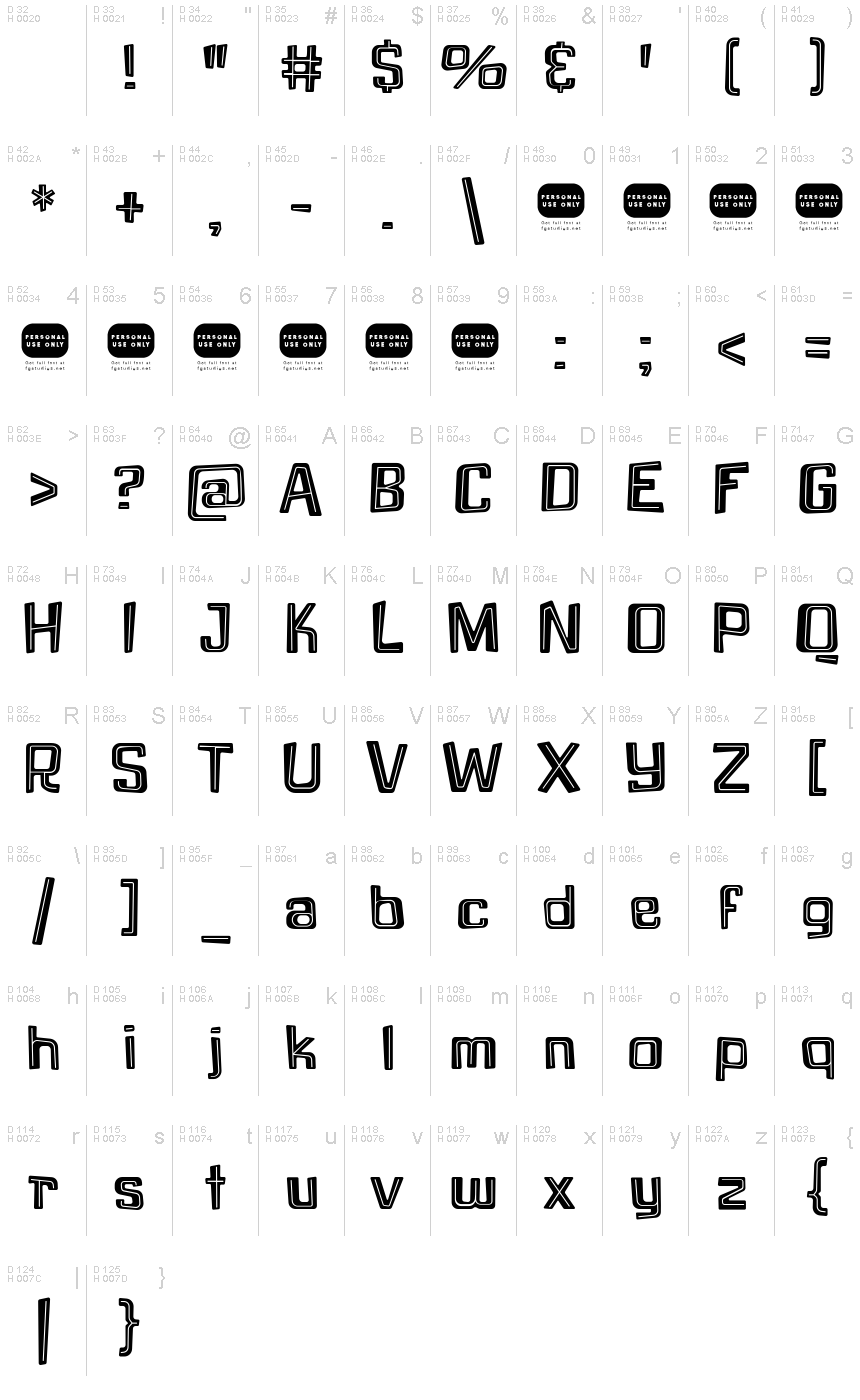
Zolla Outlined
Zolla Outlined, designed by FG Studios, is a striking display font characterized by a playful cartoon style. Its bold, outlined letters exude a sense of fun and creativity, making it perfect for eye-catching headlines and attention-grabbing titles. The distinctiveness of Zolla Outlined lies in its chunky forms and vivid outlines, offering a vibrant visual impact that is both modern and whimsical.
This font shines in contexts demanding an energetic and unconventional aesthetic. Ideal for posters, comic books, children’s book covers, or any design needing a lively personality. Zolla Outlined transforms ordinary text into engaging visual art, effortlessly capturing the viewer's imagination with its charismatic charm.